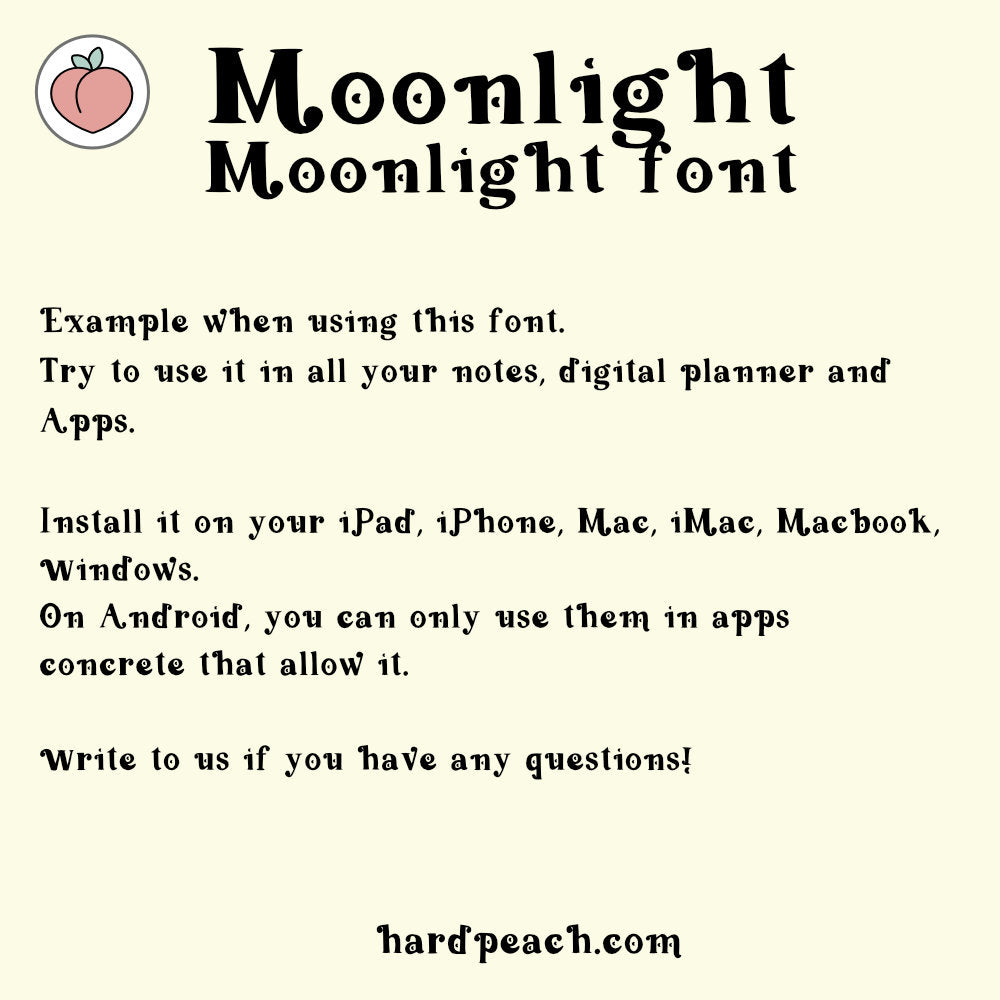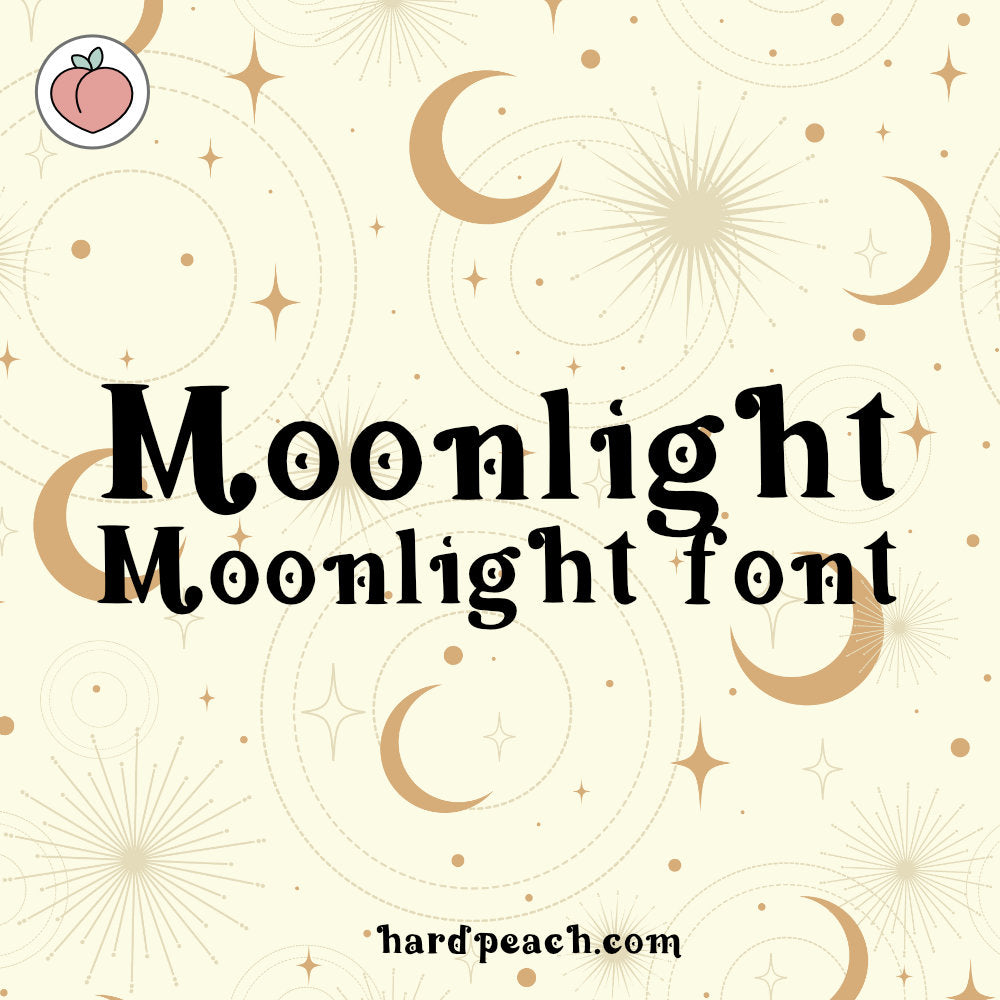
MOONLIGHT FONT
It's a font you can use for titles, notes, or to start writing all your plans; a different option inspired by the moonlight.
This typeface includes all the main characters: upper and lower case letters, numbers, vowels with closed and open accents, and signs. It also includes the letter Ç.